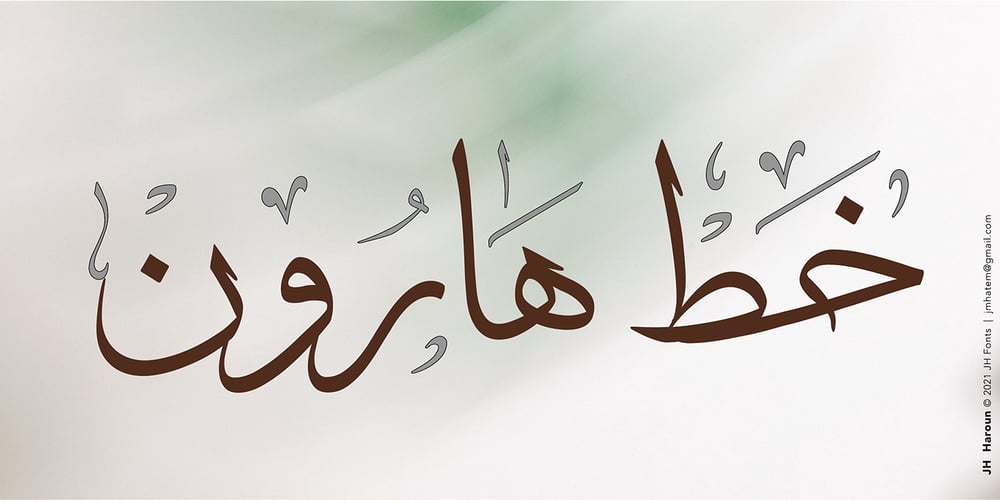
JH Haroun
JH Haroun font
JH Haroun Font Family was designed by Joe Hatem and published by JH Fonts. JH Haroun contains 1 styles and family package options. JH Haroun is based on the calligraphic Thuluth script; It includes over two thousand glyphs and smart Kashidas to simulate the actual calligraphy. It is ideal for titles, book covers, greeting cards ………